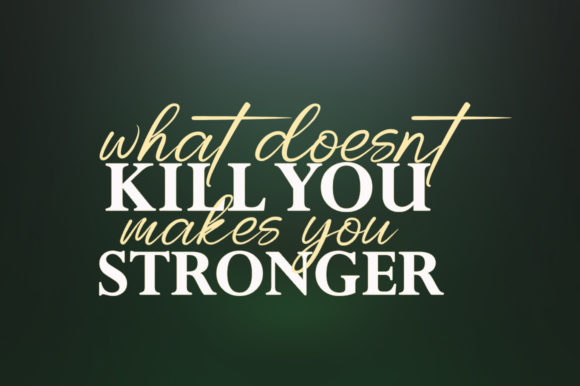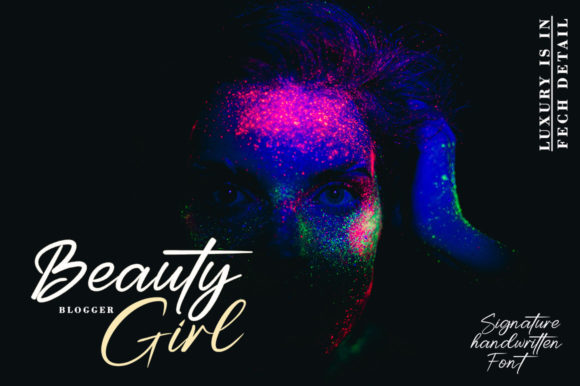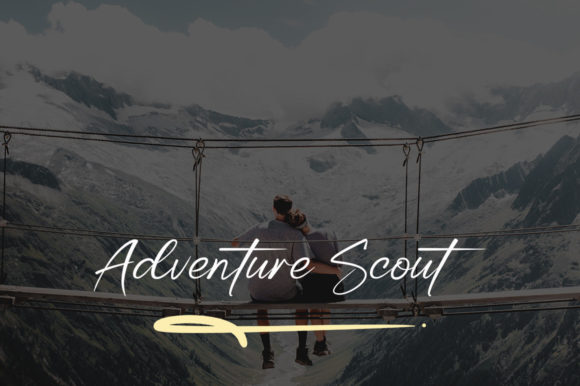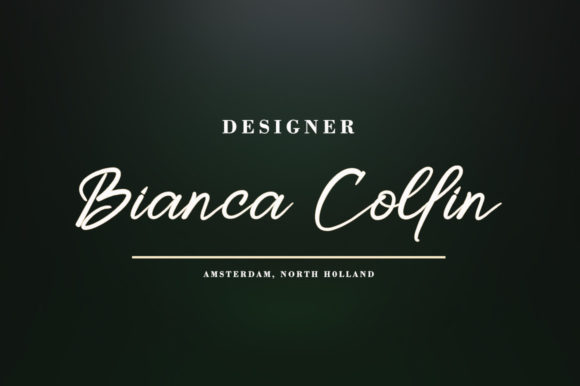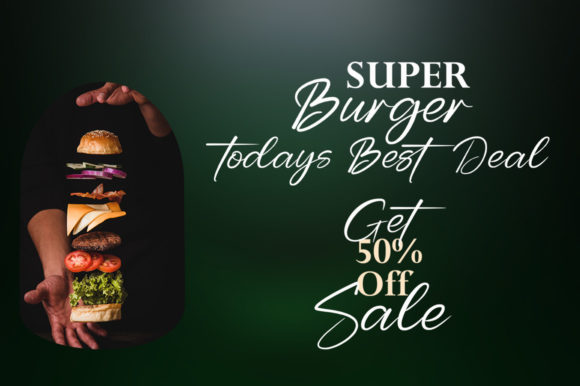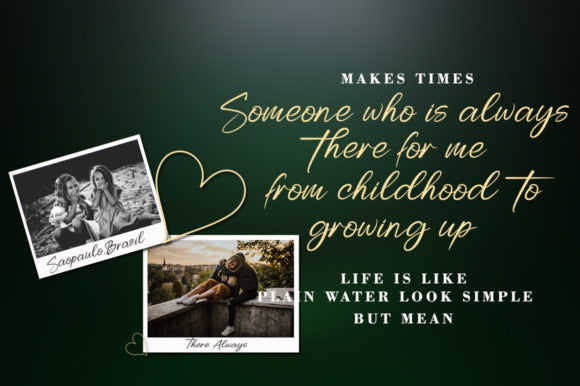
Introduction to Griston Font
Have you ever stared at a blank canvas, trying to bring your creative vision to life, only to be met with a sea of bland, uninspiring options? That’s where the perfect design resource comes in – one that can elevate your creative project from meh to magnificent. For designers seeking a high-quality, elegant touch, look no further than the Griston Font.
This lovely and delicate script font exudes class and sophistication, making it the ideal choice for those who crave a beautiful and refreshing look in their designs. Whether you’re working on a personal project or a commercial one, the Griston Font is sure to bring a touch of whimsy and charm to your work.
And the best part? This versatile font is available for free download, making it a valuable addition to any designer’s toolkit. With its transparent background and effortless style, the Griston Font is ready to take your designs to the next level – no matter what your creative vision may be.
Key Features of Griston Font
- High-quality, professional font suitable for various creative projects, including logos, branding materials, and digital designs.
- Designed with a unique, modern aesthetic, making it an ideal choice for designers looking to add a touch of sophistication to their creative project.
Honest Review: Griston Font
I recently stumbled upon the Griston Font and I must say, it’s been a game-changer for my design projects. As a designer, I’m always on the lookout for high-quality fonts that can elevate my work and the Griston Font definitely delivers.
One of the things that stood out to me about this font is its versatility. It’s perfect for both creative and corporate projects, making it a valuable addition to any design resource. Plus, it’s available for free download, which is a definite bonus!
Here are some of the things that work well with the Griston Font:
- ✨ Unique design aesthetic that sets it apart from other fonts
- ✨ Highly customizable, making it perfect for a variety of creative projects
- ✨ Transparent background, allowing for seamless integration with other design elements
- ⚠️ Limited support for certain languages, which may be a concern for designers working on international projects
- ⚠️ Not ideal for use in small font sizes, where it may become difficult to read
Overall, I’m thoroughly impressed with the Griston Font and would highly recommend it to any designer looking to add some creativity to their projects. With its high-quality design and versatility, it’s definitely a valuable addition to any design resource.
Tips for Getting the Most Out of Griston Font
To get the most out of the Griston Font, use it on a transparent background to create a clean and modern look. Experiment with different font sizes and styles to add visual interest to your design.
The Griston Font is perfect for creating eye-catching headlines, titles, and captions. Use it to add a touch of sophistication to your branding, marketing materials, and website design.